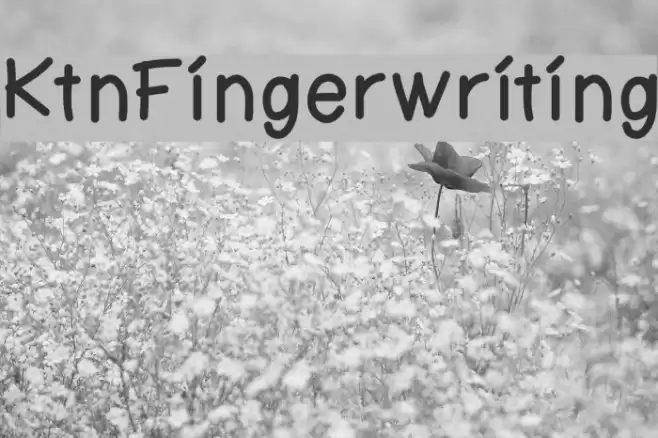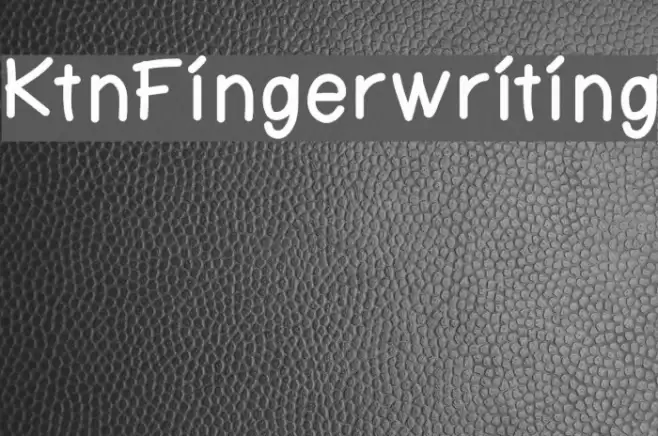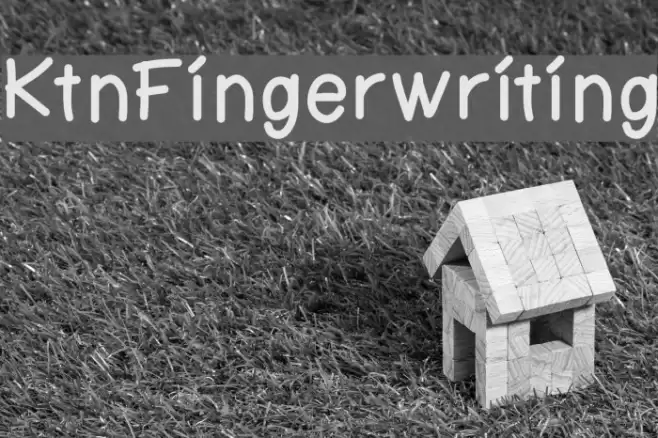
KtnFingerwriting Font
KtnFingerwriting Description
This font exudes a playful and casual handwritten style, reminiscent of a child's neat handwriting. The characters are rounded and slightly uneven, giving it a warm and approachable feel. The uppercase and lowercase letters maintain a consistent flow, with a slight tilt that adds to its informal charm. The numbers and special characters are designed to match the overall aesthetic, ensuring a cohesive look across all text. This font is perfect for projects that require a personal touch, such as invitations, greeting cards, or educational materials.
A playful, casual handwritten font with rounded, slightly uneven characters from Handwritten fonts.
- Proposed Projects: Ideal for invitations, greeting cards, educational materials, and children's books.
- Overall Style: Casual, Playful
- Use Case: Headlines, Informal text, Personal projects